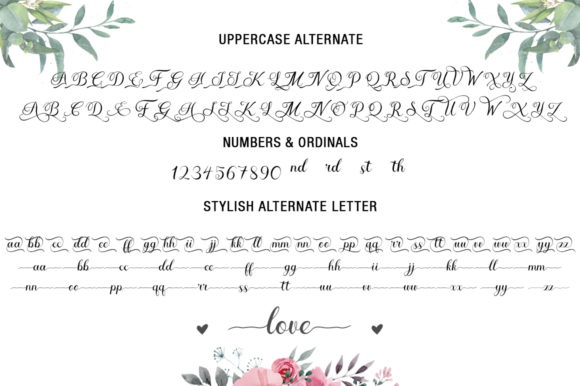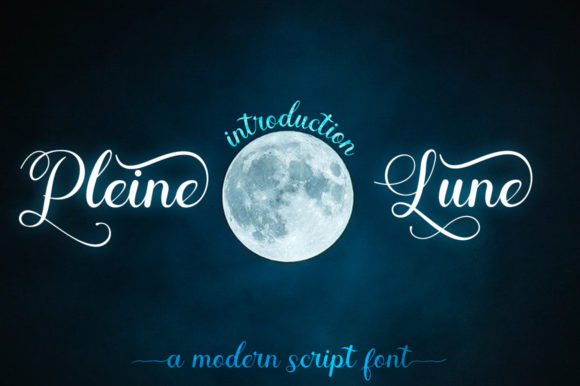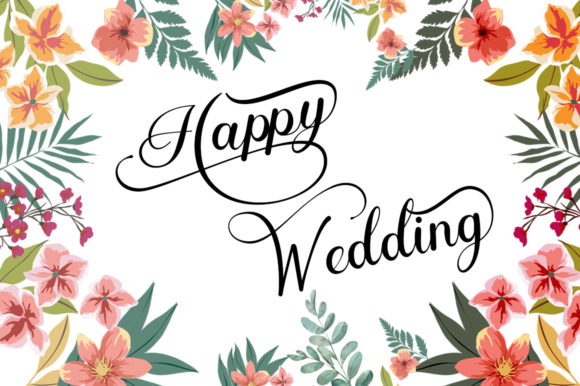
Pleine Lune Font
About Pleine Lune Font
Pleine Lune is an elegant and romantic handwritten font perfect for logos, brochures, business cards, online stores, t-shirt designs, mockups, invitation cards, wedding cards, flyers, posters, and many more.